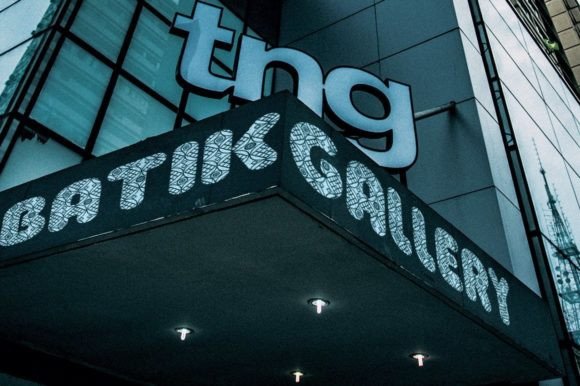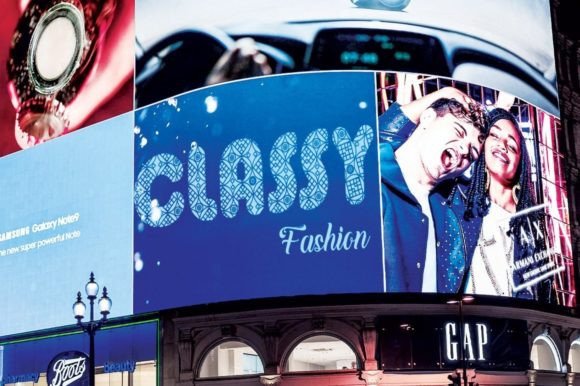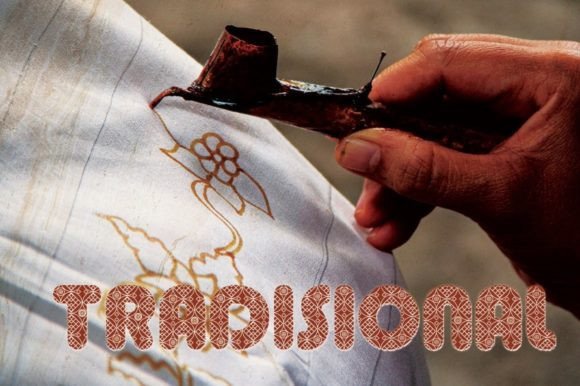
Introducing Classy Batik Font: Elevate Your Designs with a Touch of Elegance
Are you a designer or crafter looking for a font that exudes sophistication and modernity? Look no further than Classy Batik Font. This playful and decorative font is perfect for adding a touch of elegance to your designs, making it ideal for social media posts, fashion magazines, art galleries, photography, and more.
What is Classy Batik Font?
Classy Batik Font is a unique and stylish font that combines traditional batik elements with modern design sensibilities. Batik, a technique of dyeing fabric using wax and dye, has been a staple in traditional Indonesian and African cultures for centuries. Classy Batik Font takes inspiration from this ancient art form and transforms it into a digital font that is both playful and sophisticated.
Key Features of Classy Batik Font
- Playful and Modern Design: Classy Batik Font boasts a fresh and modern design that is perfect for designers and crafters looking to add a touch of whimsy to their work.
- Decorative Elements: The font features intricate decorative elements, reminiscent of traditional batik designs, adding an extra layer of elegance to your text.
- Versatile: Classy Batik Font is suitable for a wide range of applications, from social media posts and fashion magazines to art galleries and photography.
- Easily Customizable: The font is easy to customize, allowing you to adjust the size, color, and style to fit your design needs.
Uses of Classy Batik Font
Classy Batik Font is a versatile font that can be used in a variety of design projects. Here are some ideas to get you started:
- Social Media Posts: Add a touch of elegance to your social media posts with Classy Batik Font. Perfect for fashion, beauty, and lifestyle brands.
- Fashion Magazines: Use Classy Batik Font to add a stylish touch to your fashion magazine layouts, headers, and titles.
- Art Galleries: Classy Batik Font is perfect for art galleries, exhibitions, and installations, adding a touch of sophistication to your display text.
- Photography: Use Classy Batik Font to add a creative touch to your photography projects, such as captions, titles, and quotes.
Tips for Using Classy Batik Font
Here are some tips for using Classy Batik Font in your designs:
- Pair with Simple Fonts: Pair Classy Batik Font with simple fonts to create a striking contrast and add visual interest to your design.
- Experiment with Colors: Classy Batik Font looks great in a variety of colors. Experiment with different hues and shades to find the perfect combination for your design.
- Use for Headings and Titles: Classy Batik Font is perfect for headings and titles. Use it to add a touch of elegance and sophistication to your design.
Classy Batik Font is a unique and stylish font that is perfect for designers and crafters looking to add a touch of elegance and sophistication to their designs. With its playful and modern design, decorative elements, and versatility, Classy Batik Font is sure to become a staple in your design toolkit. So why wait? Download Classy Batik Font today and elevate your designs to the next level!